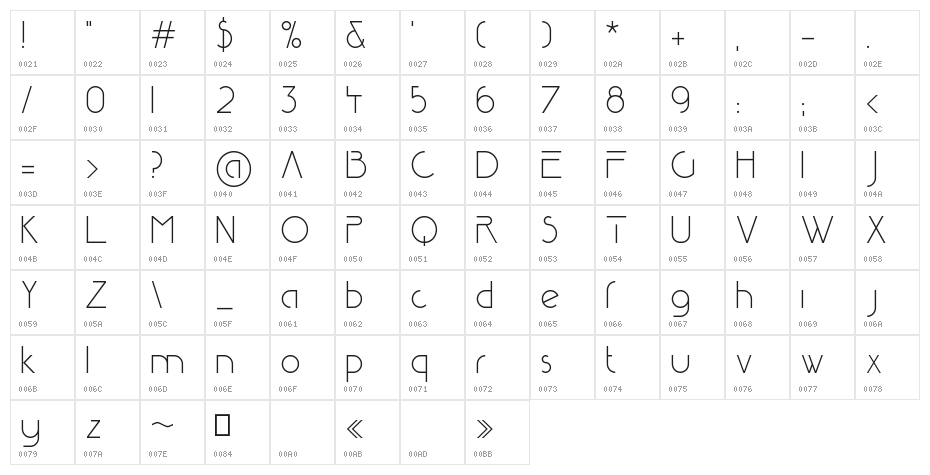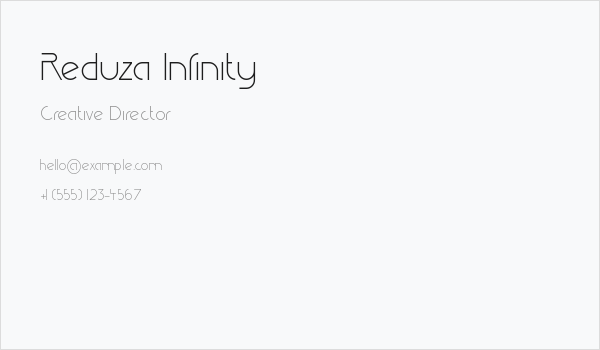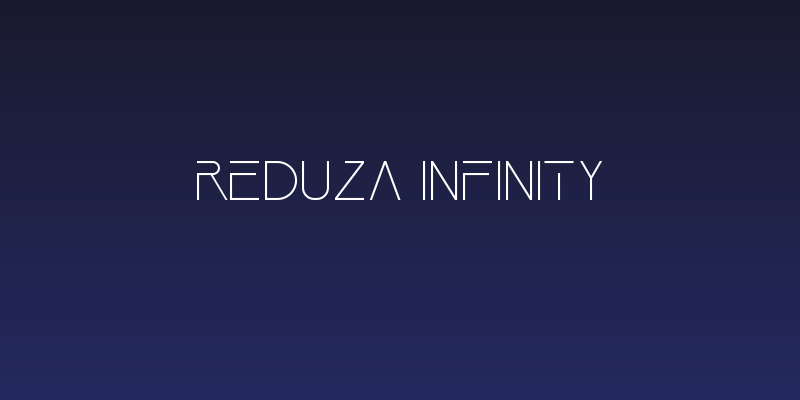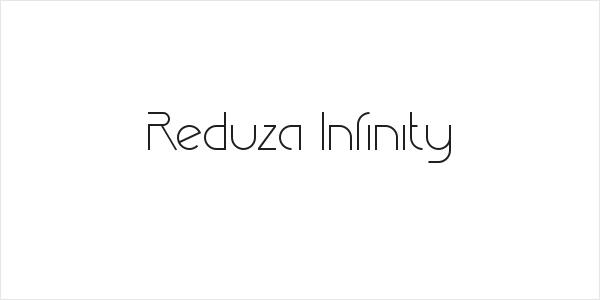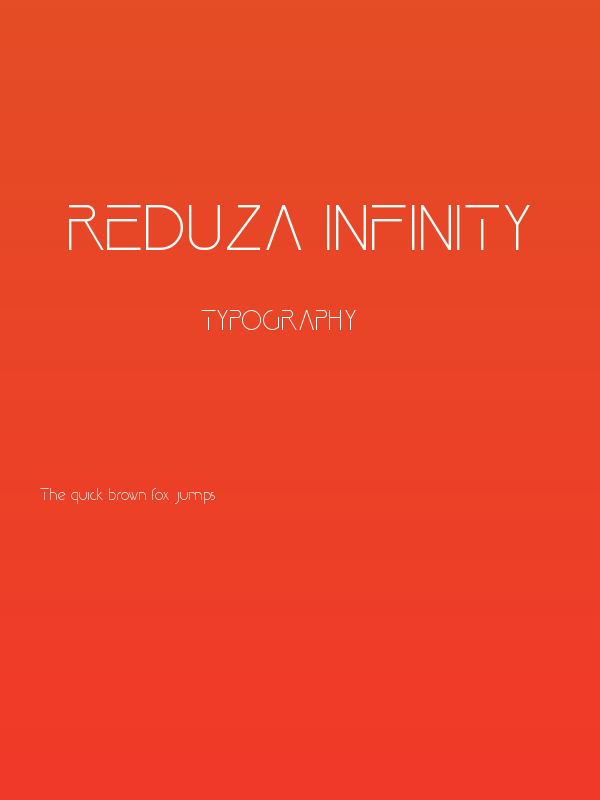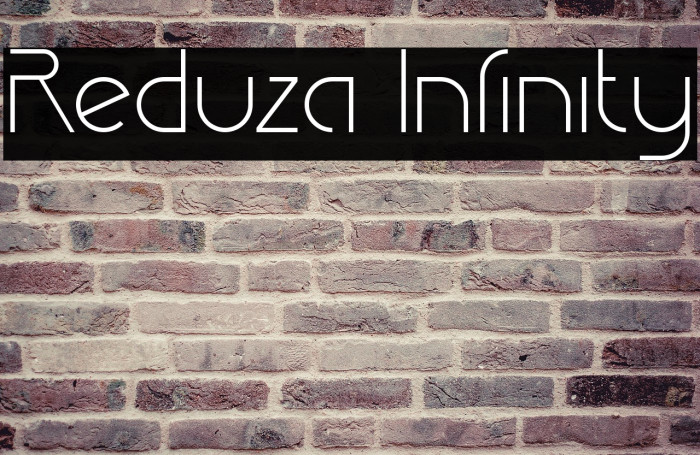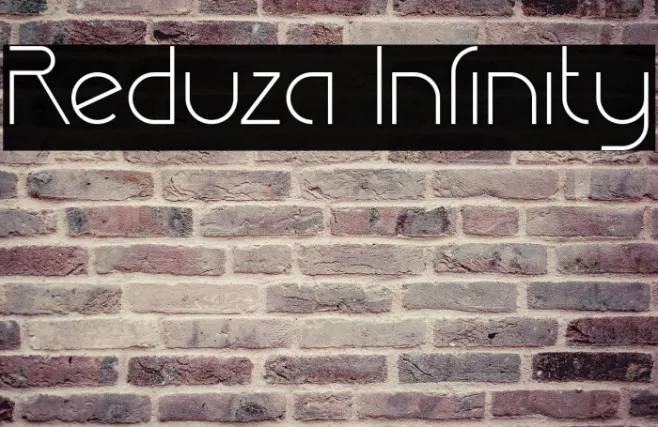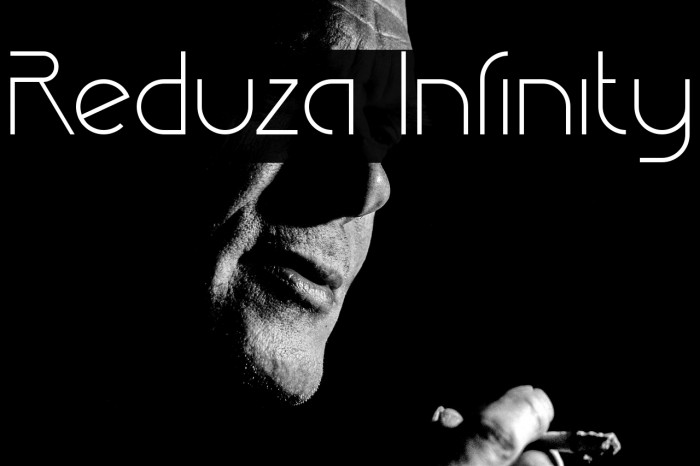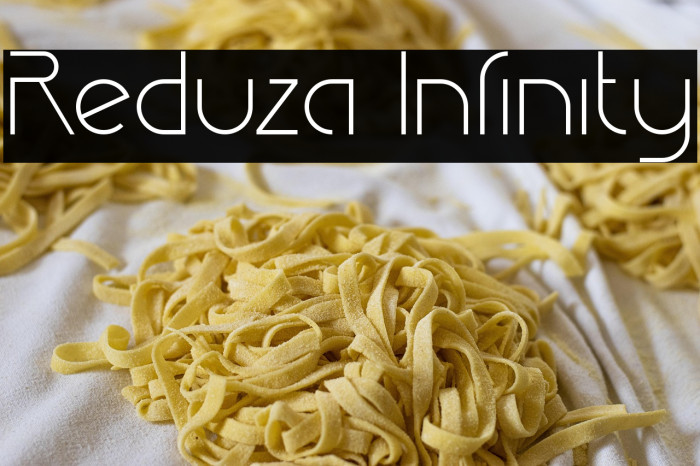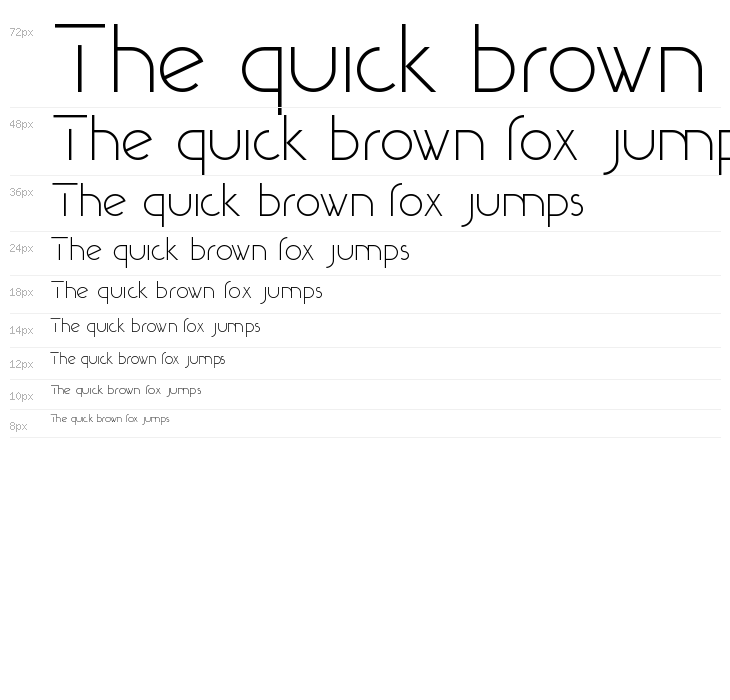
Reduza Infinity Font
Reduza Infinity Description
This font features a sleek and modern design with geometric influences. The characters are constructed with clean, straight lines and subtle curves, giving it a futuristic and minimalist appearance. The uppercase letters are particularly striking with their sharp angles and unique forms, while the lowercase letters maintain a consistent style that complements the uppercase. The numerals are distinct and easily readable, and the special characters are designed to match the overall aesthetic. This font's design is both functional and stylish, making it suitable for a variety of contemporary applications.
| Proposed Projects | Ideal for branding, tech-related projects, modern web design, and innovative product packaging. |